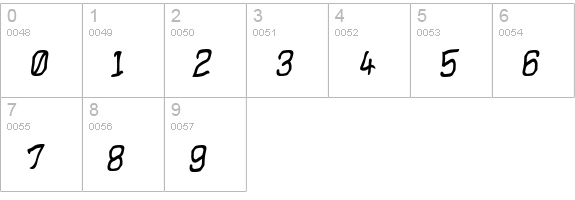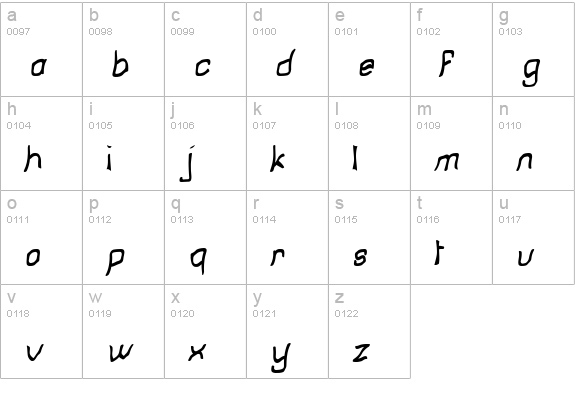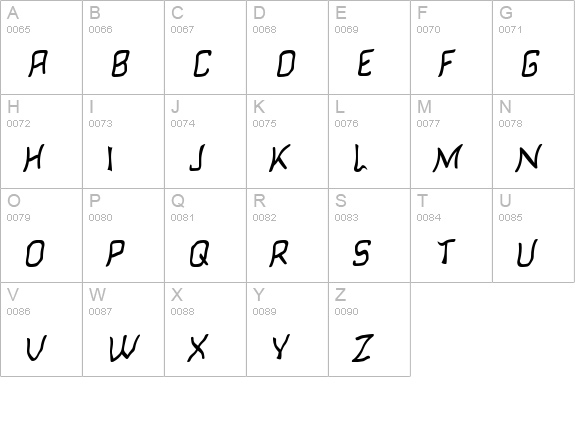
Moronsoft Font Details
Introducing Moronsoft font - a versatile and modern typeface that effortlessly combines elegance with a touch of playfulness. With its clean lines and stylish curves, Moronsoft is perfect for a wide range of design projects, from branding to web design to print materials. This font is not only visually appealing but also incredibly easy to read, making it suitable for both headlines and body text. Its bold yet sophisticated look will add a unique flair to any project. Best of all, Moronsoft font is completely free to download at FontsMarket.com. So why wait? Add this stunning font to your collection today and elevate your design projects to the next level!